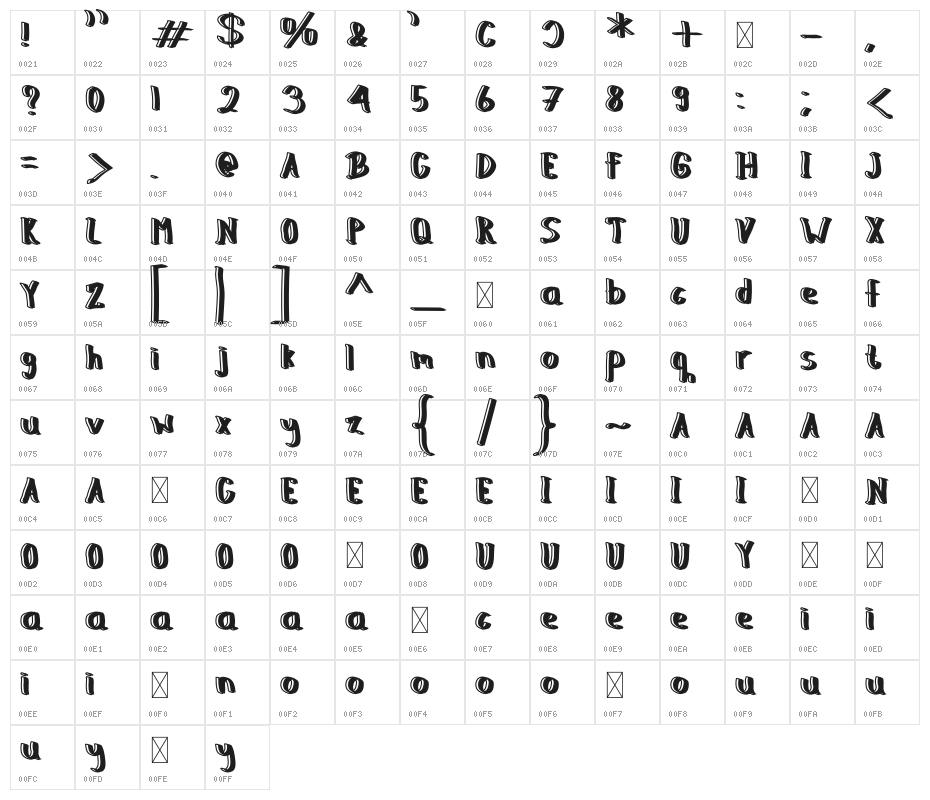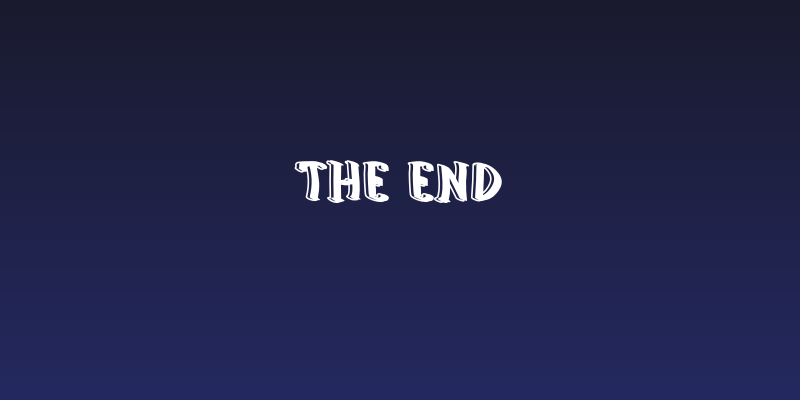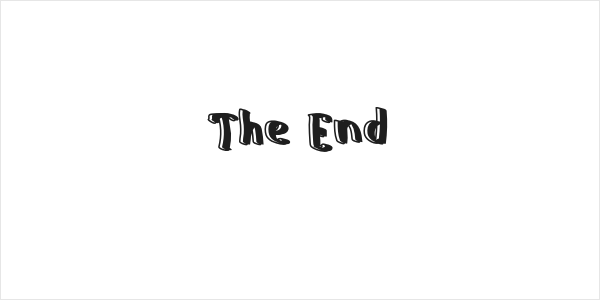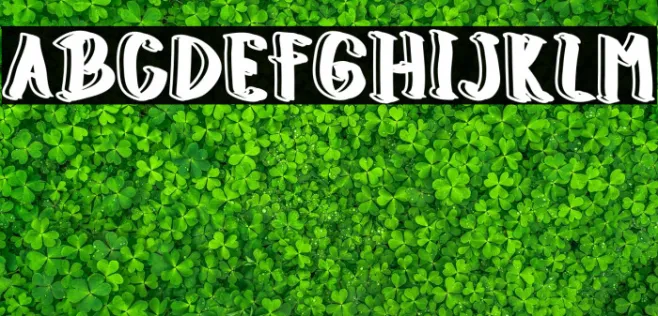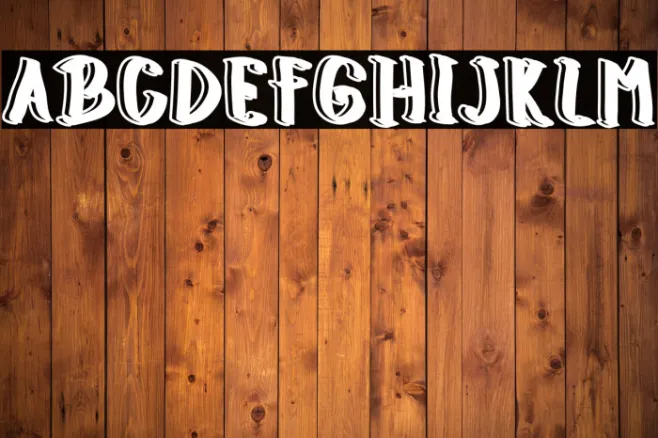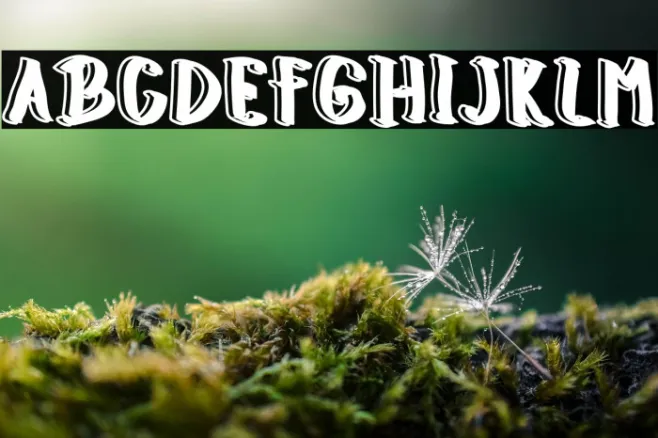
The End Font
The End Description
This font features a bold and playful style with a hand-drawn appearance. The characters are slightly irregular, giving them a whimsical and artistic feel. The strokes are thick and rounded, with a slight slant that adds a dynamic quality. The uppercase and lowercase letters maintain a consistent style, while the numbers and special characters complement the overall design. This font's unique and eye-catching look makes it suitable for creative projects that require a touch of personality.
| Overall Style | Playful, Artistic |
| Proposed Projects | Ideal for posters, children's books, creative branding, and playful invitations. |